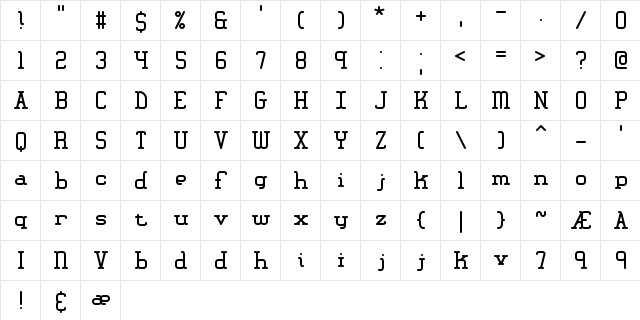
Amplitude BRK Normal
Design Context for Amplitude BRK Typeface
Amplitude BRK takes a measured approach to typography — its balanced proportions and neutral character make it a reliable workhorse for both digital and print work.
Pro Tip: Use Amplitude BRK in both headline and body roles to test its range before committing to a single application.